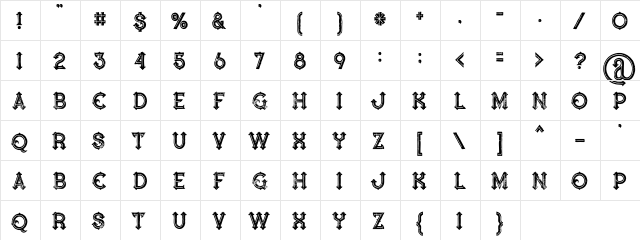
Blue North Inline Grunge
Design Context for Blue North Inline Grunge Typeface
Blue North Inline Grunge trades polish for personality, using distressed and eroded forms to bring grit and attitude to creative work.
A strong fit for alternative music projects, graffiti-adjacent design, and anything that deliberately resists polish.
Pro Tip: Use Blue North Inline Grunge at larger sizes where the texture and irregularity of each letterform can be clearly seen — it loses its character at small sizes.